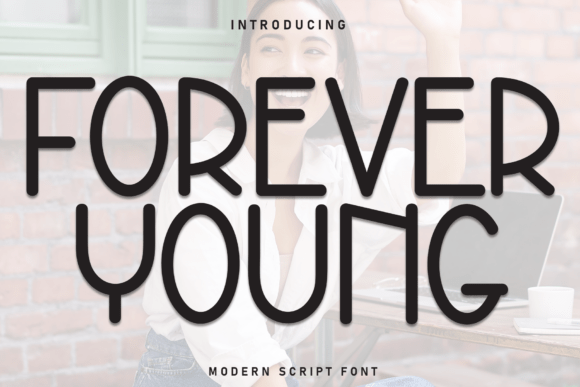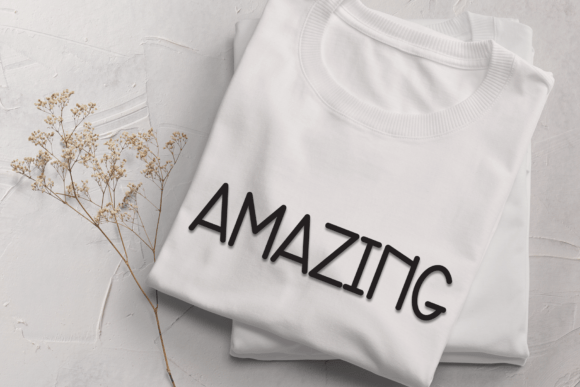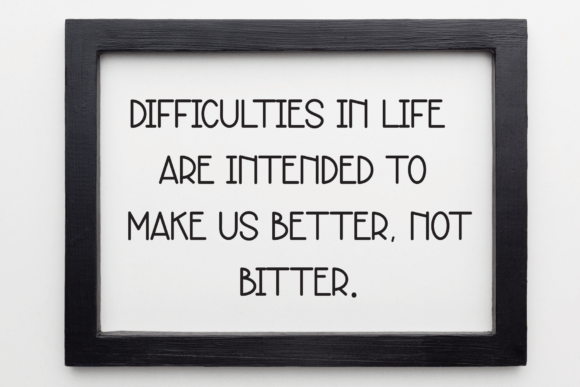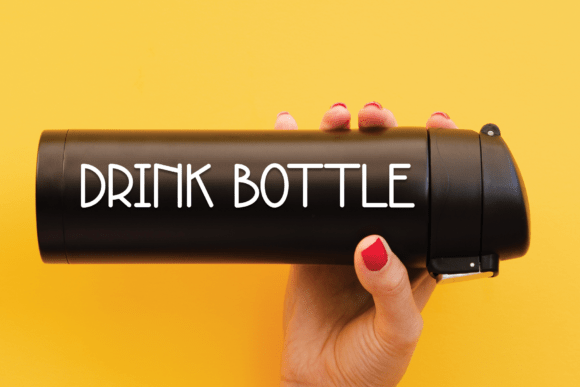
Forever Young Font: A Cute Display Font for Cricut & DIY Projects
About the Forever Young Font
Welcome to the world of Forever Young Font, a typeface that will inspire your next great project. A charming handmade display font that brings a touch of warmth and personality to every project. With organic strokes and an imperfectly perfect look, this font captures the essence of handcrafted design. Perfect for greeting cards, packaging, DIY projects, logos, and anything that needs a creative and authentic flair. Let your designs stand out with this fun and friendly typeface!
Forever Young excels as a display font for headlines, short taglines, and logos, particularly in branding for artisanal products, craft businesses, or children’s brands. Its handmade charm works wonderfully on packaging, invitations, and short-form marketing materials. However, its organic nature makes it unsuitable for extended body text or UI elements where legibility is paramount.
The font’s playful yet friendly personality pairs well with clean sans-serif fonts like Lato or Open Sans for a balanced contrast. For a more sophisticated feel, consider pairing it with a classic serif like Garamond or a slightly more geometric sans-serif like Montserrat. Avoid pairing it with other highly decorative or script fonts to prevent visual clutter.
Forever Young’s overall aesthetic is best described as friendly and approachable, conveying a sense of warmth and authenticity. This makes it ideal for projects that prioritize a handcrafted, personable image.